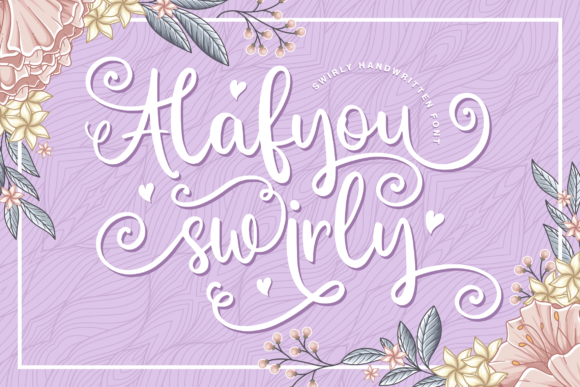
Get Ready to Add a Touch of Whimsy to Your Designs
Have you ever found yourself rummaging through your font collection, searching for that perfect handwritten font to add a personal touch to your design? It’s a feeling we’re all too familiar with, and it’s exactly what led us to discover the lovely Alafyou Swirly Font.
This sweet and playful font is a treasure trove of creativity, offering endless possibilities for designers looking to add a touch of whimsy to their work. With its flexibility and neat style, Alafyou Swirly Font is the perfect companion for any design project, from elegant invitations to fun social media graphics.
Whether you’re a seasoned designer or just starting out, the Alafyou Swirly Font is a valuable addition to your toolkit, guaranteed to bring a smile to your face and a touch of magic to your designs.
Alafyou Swirly Font Key Features
- Unique Swirly Design: This font features a distinctive swirly design that adds a touch of elegance and sophistication to any text.
- Multi-Language Support: Compatible with multiple languages, including Latin, Cyrillic, and Greek alphabets, making it a versatile choice for global designs.
- High-Quality Glyphs: Features high-quality glyphs with precise curves and lines, ensuring a professional and polished look in any design project.
Designer Review: Alafyou Swirly Font
First off, let’s talk about what works well with Alafyou Swirly Font ✨. This font is perfect for adding a touch of whimsy and playfulness to your designs. The swirly shapes and curly lines make it ideal for use in children’s books, party invitations, and other creative projects. The font is also highly customizable, allowing you to adjust the size, color, and spacing to suit your needs.
Another strength of Alafyou Swirly Font is its versatility ✨. It can be used in both digital and print designs, making it a great choice for a wide range of projects. The font is also highly legible, even at smaller font sizes, which makes it perfect for use in headlines and titles.
While Alafyou Swirly Font is a great choice for many projects, there are some limitations to consider ⚠️.
- The font may not be suitable for use in formal or professional designs, as it can come across as too playful or childish.
- The font may be difficult to read at very small font sizes, so it’s best to use it in conjunction with larger font sizes.
- The font may not be suitable for use in complex or technical designs, as the swirly shapes and curly lines can make it difficult to read.
In conclusion, Alafyou Swirly Font is a fun and playful font that is perfect for adding a touch of whimsy to your designs. While it may have some limitations, it is a great choice for a wide range of projects, from children’s books to party invitations. With its high level of customizability and versatility, Alafyou Swirly Font is a great addition to any designer’s toolkit.
Use Alafyou Swirly Font to add a touch of whimsy and creativity to your designs. Common use cases include:
- Birthday invitations and party decorations.
- Wedding invitations and wedding decorations.
- Children’s book illustrations and educational materials.
- Marketing materials and social media graphics.